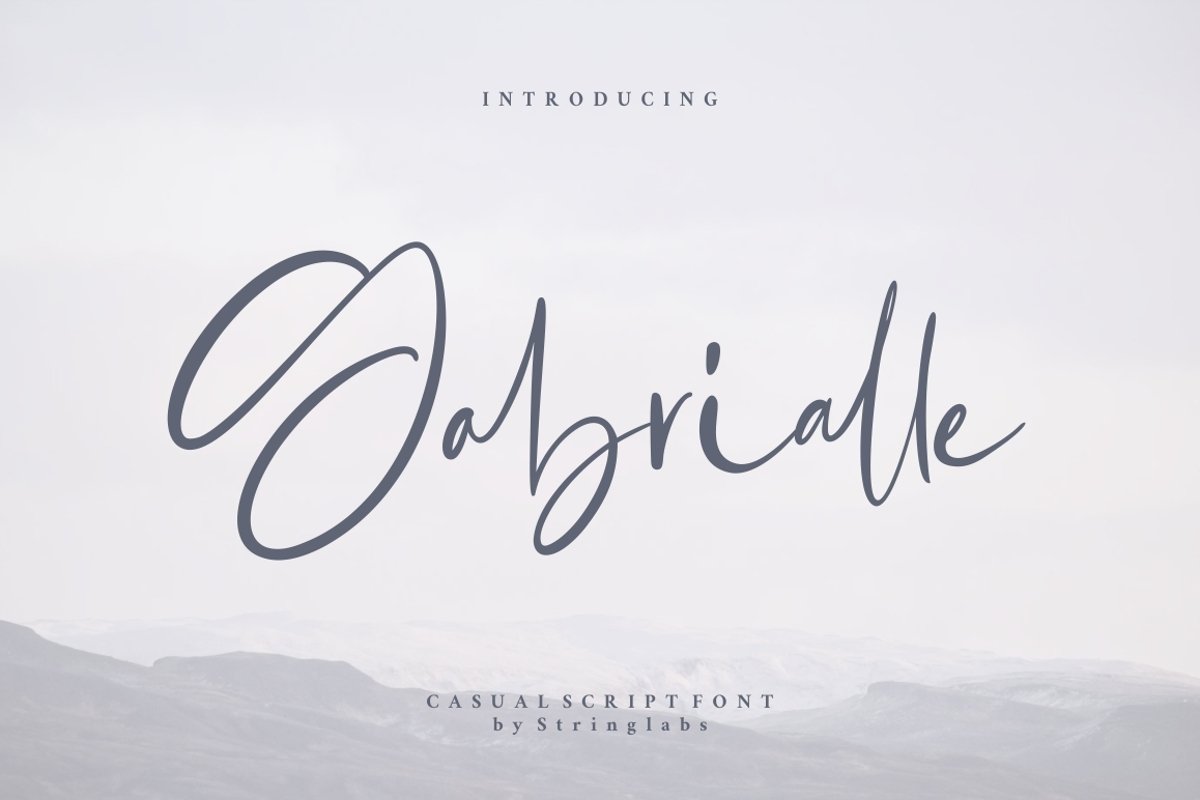
Gabrialle - Casual Script Font
Gabrialle
Introducing Gabrialle - Casual Script Font
Gabrialle is an incredibly beautiful script with a unique style. Get inspired by its authentic and contemporary vibe!
- Uppercase and Lowercase letters
- Numbering and Punctuations